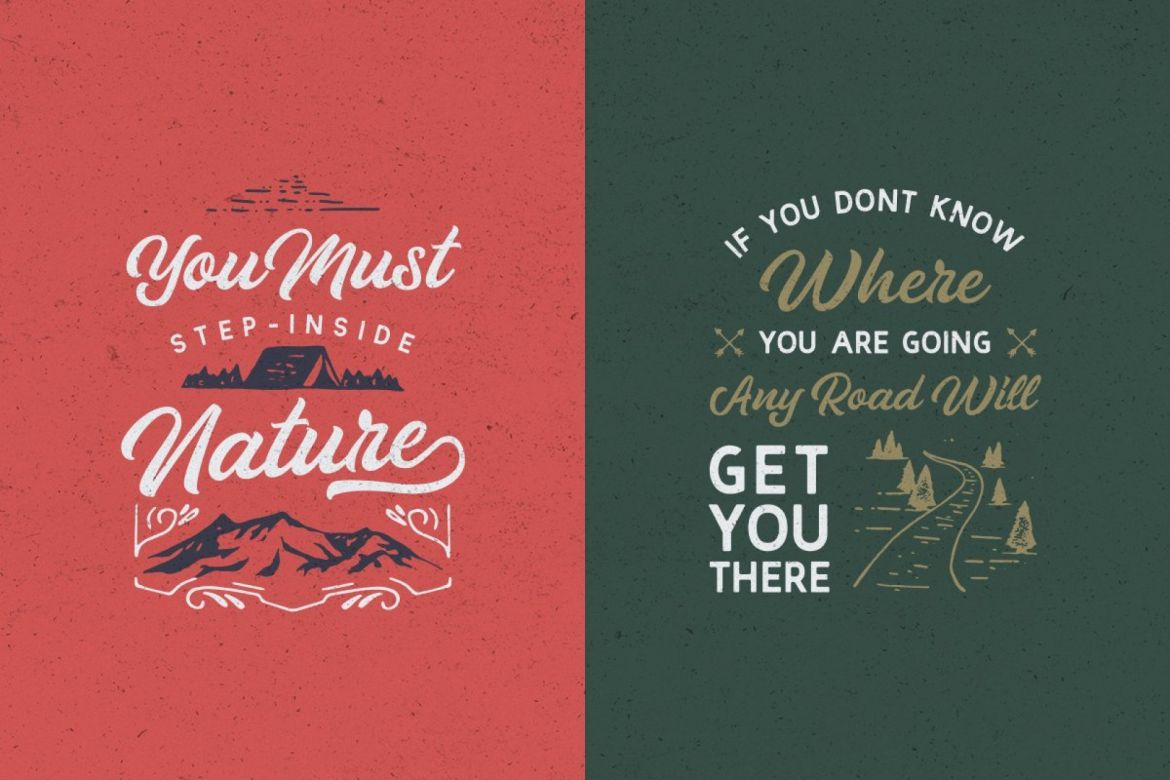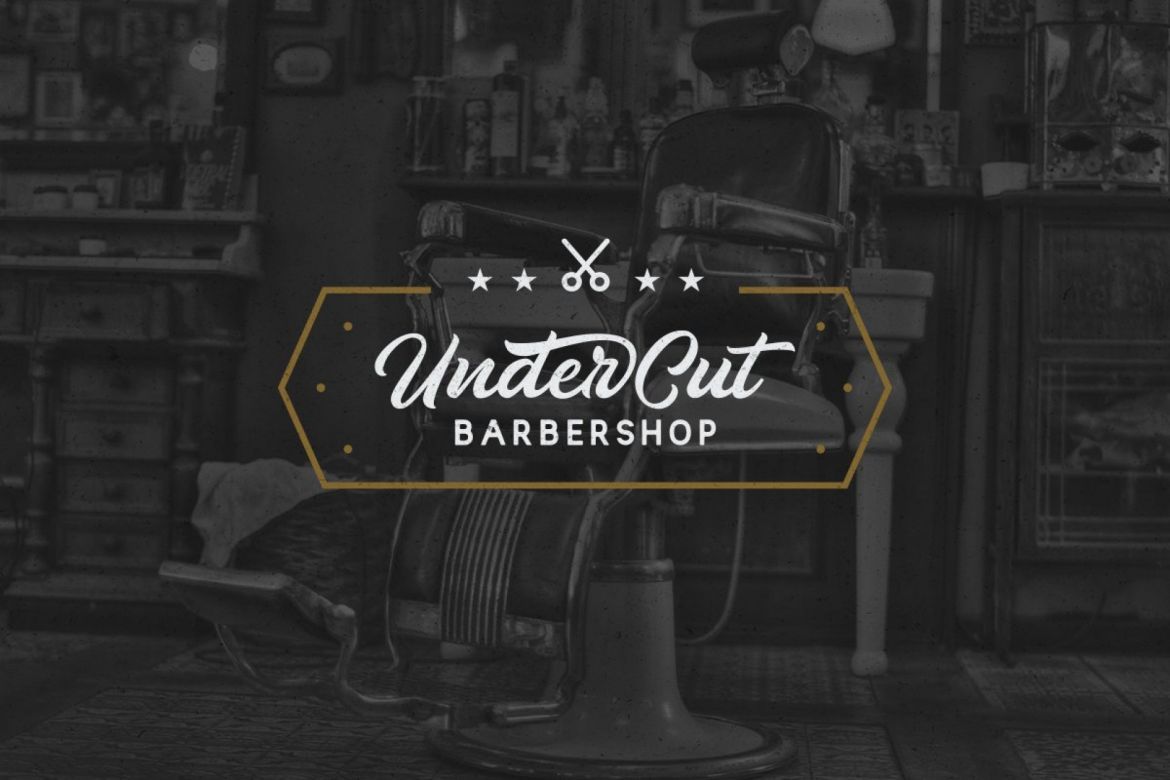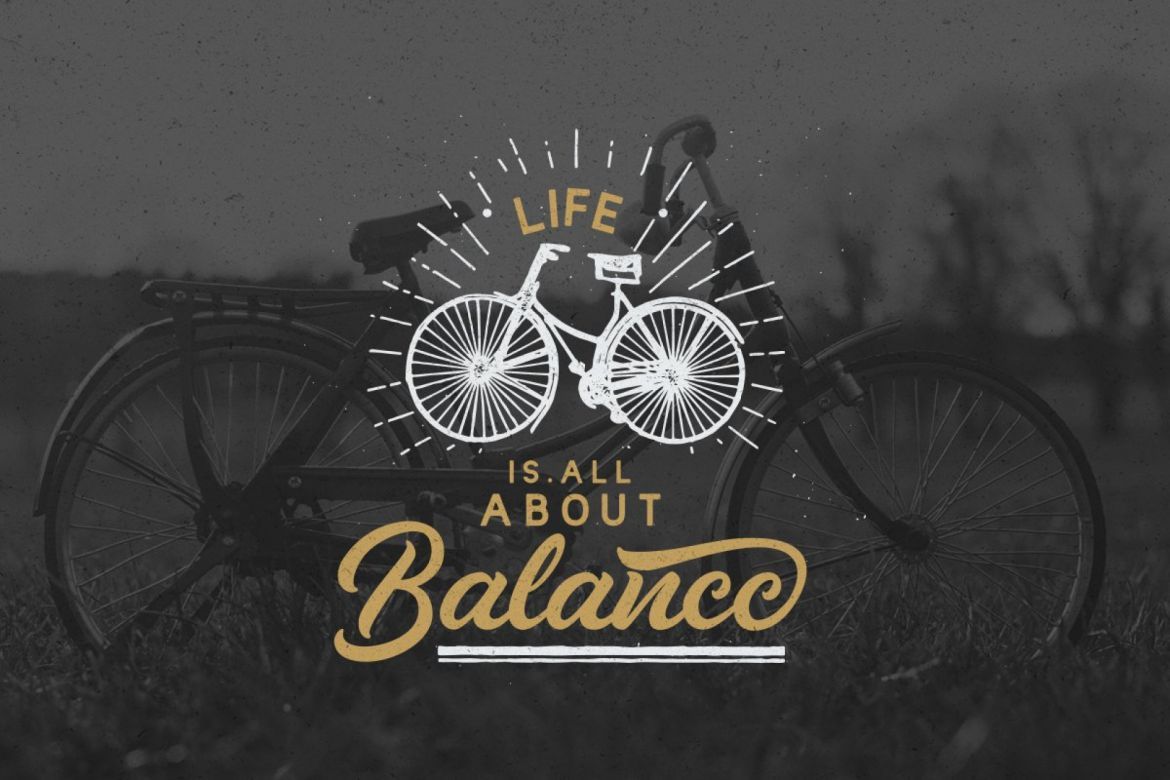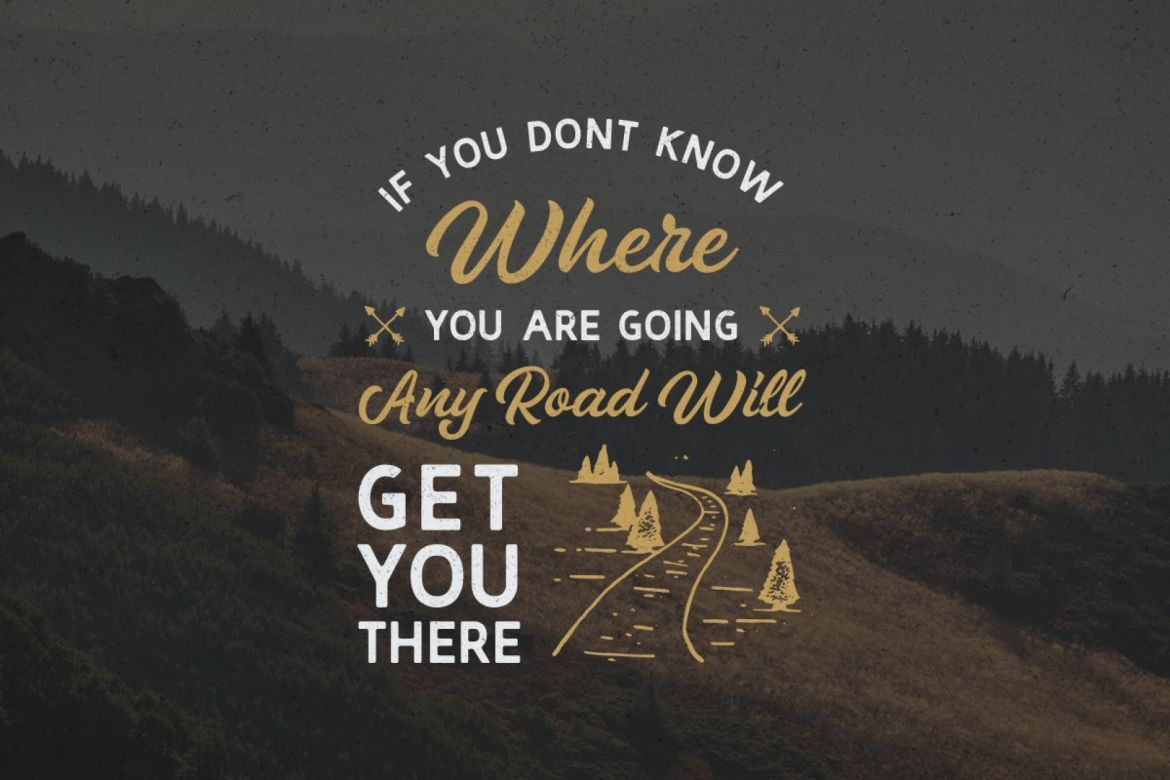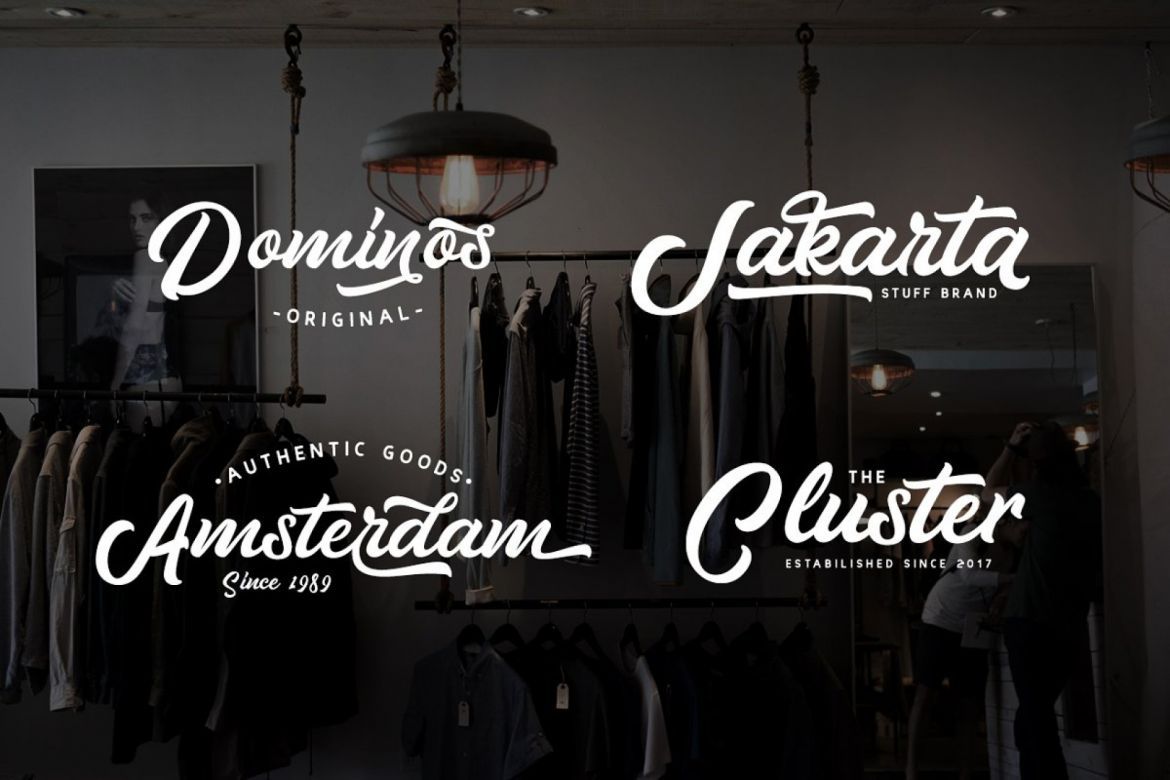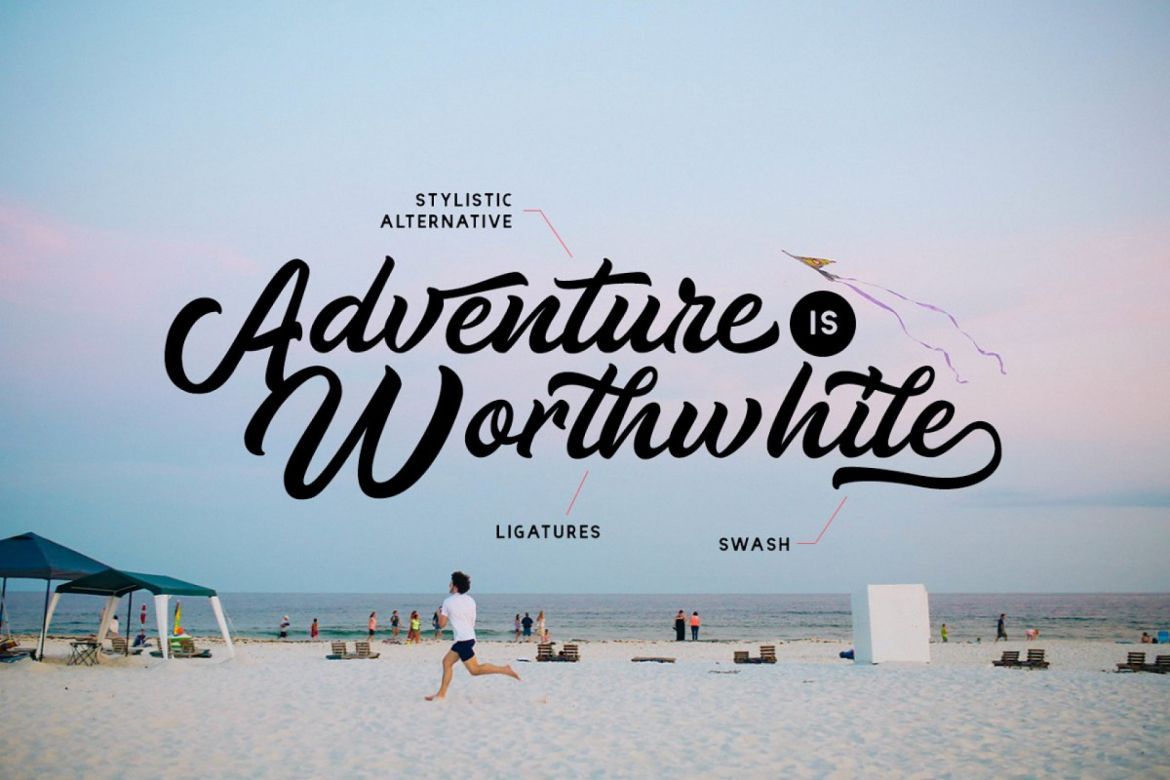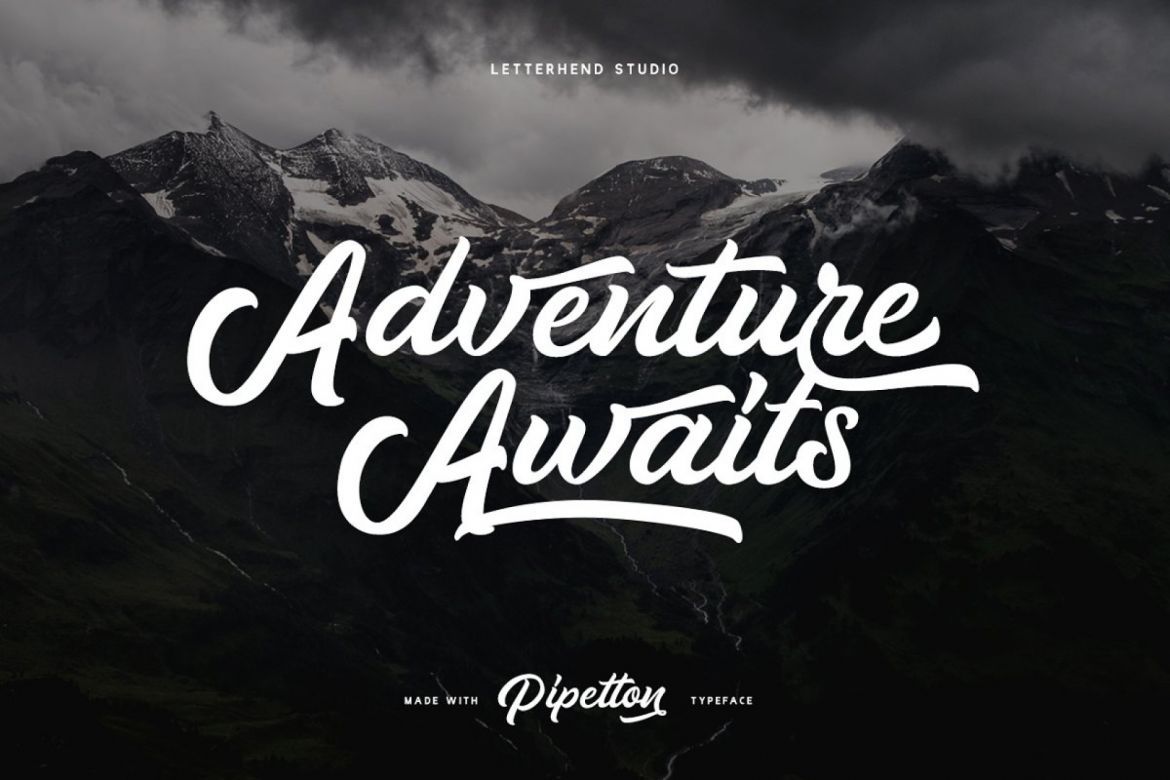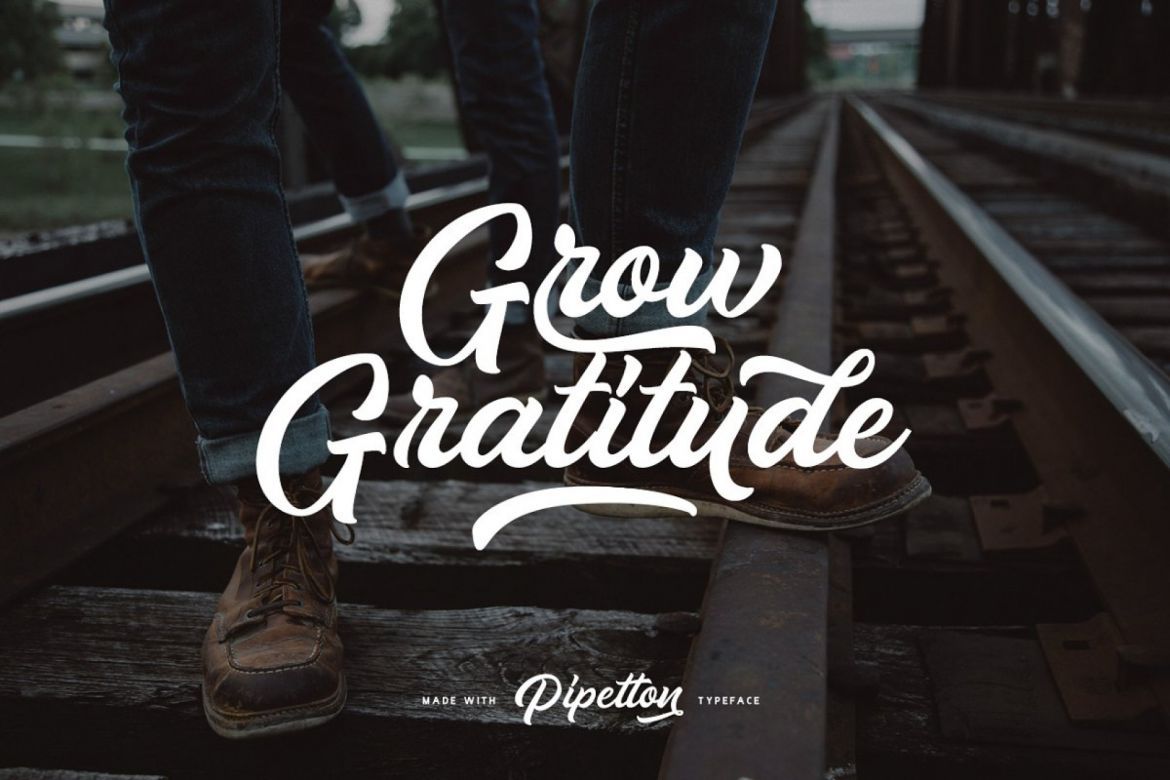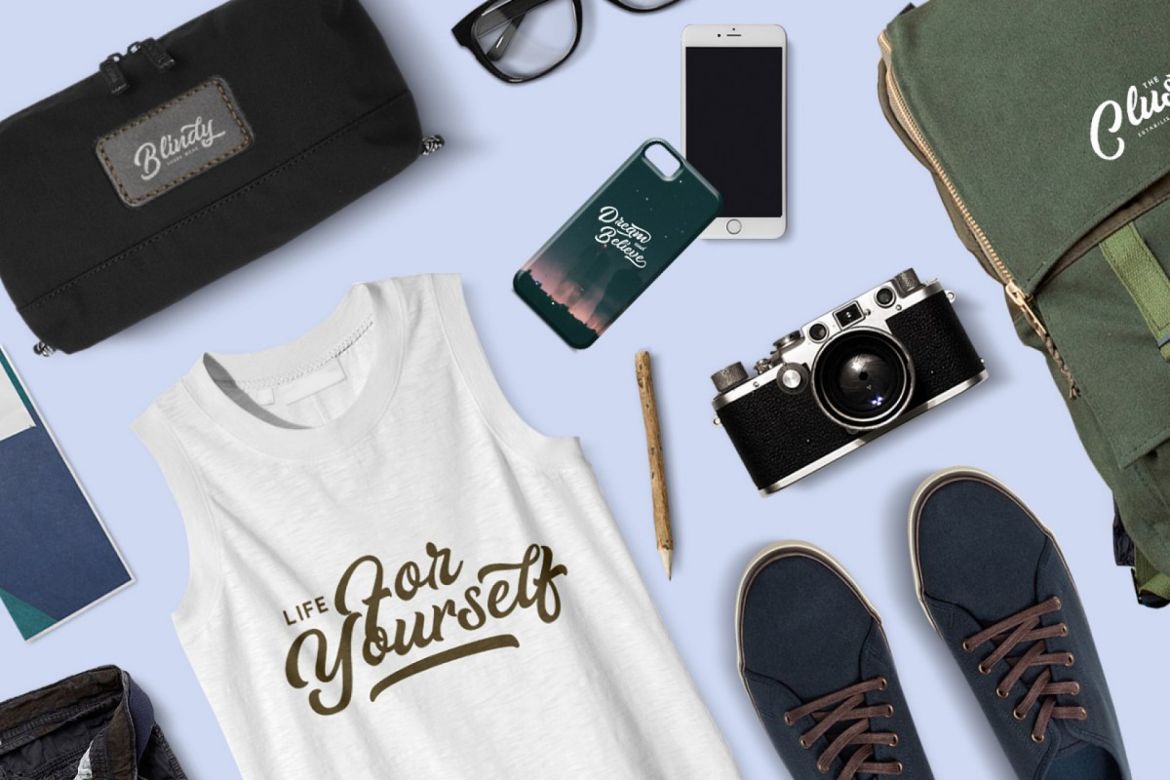
Pipetton Font Duo
• this font is present in uppercase, lowercase letters, punctuation, symbols & numbers, alternative sets of styles, binders, and sliding.
• this font is suitable for use as logotype / wordmark / label, etc. with its unique and bold character making it stand out from the crowd.